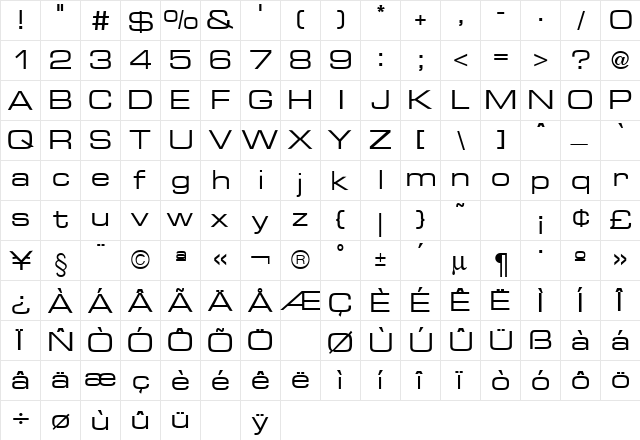
Euro Technic Extended Regular
Design Context for Euro Technic Extended Typeface
Euro Technic Extended channels digital-age aesthetics through its sharp, structured letterforms — ideal for brands that want to signal innovation.
Pro Tip: Try Euro Technic Extended with generous letter-spacing in UI labels and navigation — the geometric forms benefit from room to breathe.